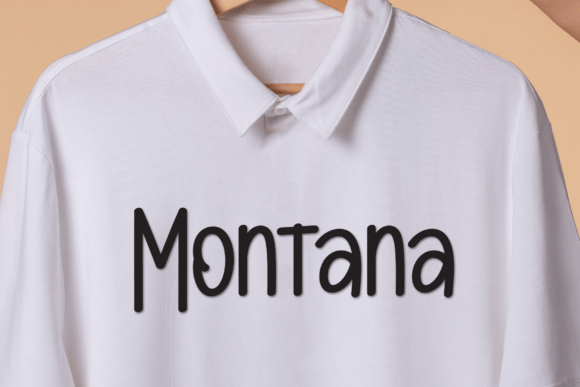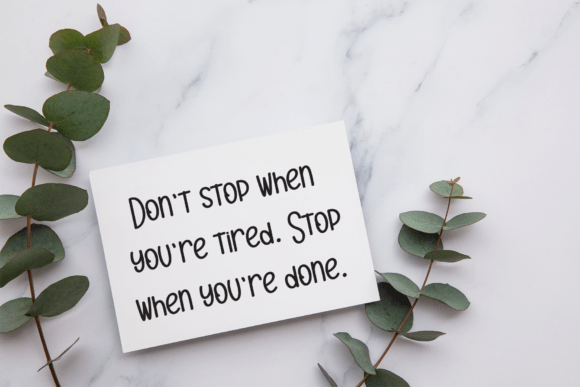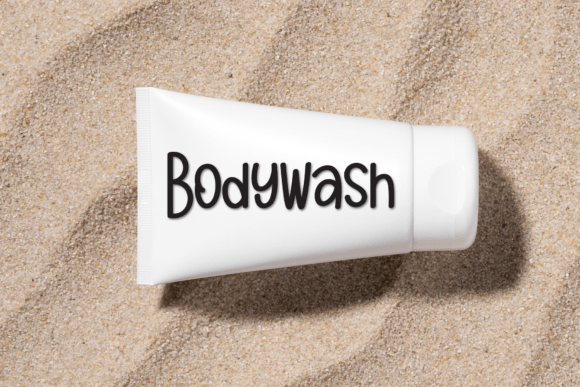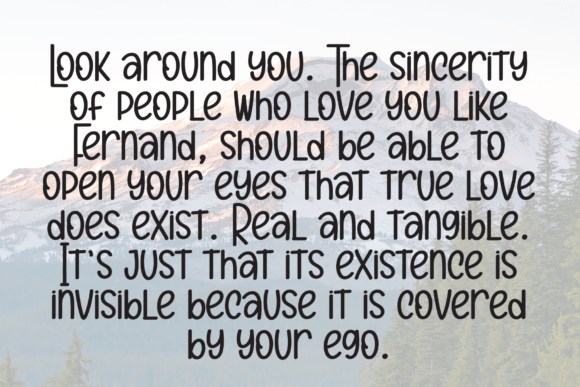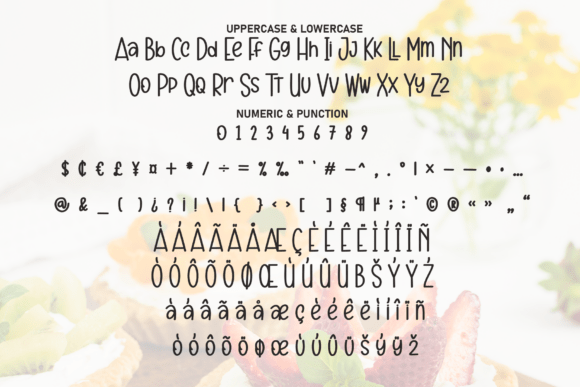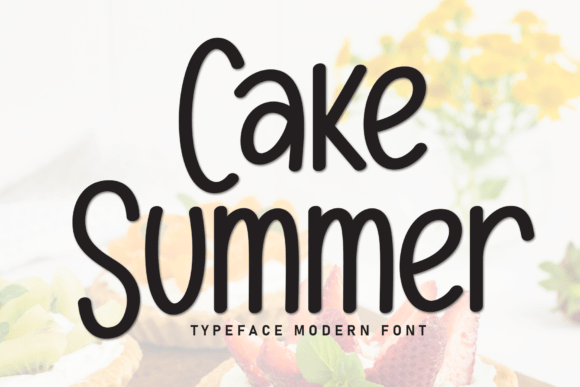
Cake Summer Font: The Perfect Addition to Your Design Projects
Are you looking for a font that exudes warmth, clarity, and a touch of casual elegance? Look no further than Cake Summer Font. This beautifully designed display font is perfect for adding a personal touch to your branding, headlines, and everyday designs. In this article, we’ll dive into the features and benefits of Cake Summer Font, and explore how it can elevate your design projects.
Clean Structure, Approachable Style
Cake Summer Font boasts a clean structure and approachable style, making it an excellent choice for designers and crafters who want to create a lasting impression. The font’s balanced letterforms offer exceptional readability, ensuring that your message is conveyed clearly and effectively. Whether you’re designing a logo, brochure, or social media post, Cake Summer Font is the perfect choice for adding a touch of sophistication and charm.
One of the standout features of Cake Summer Font is its versatility. This font is perfect for a wide range of design projects, from branding and advertising to packaging and digital media. The font’s casual and neat display style makes it an excellent choice for:
• Branding: Create a lasting impression with Cake Summer Font, perfect for logos, business cards, and letterheads.
• Headlines: Add a touch of elegance to your headlines with Cake Summer Font, ideal for posters, flyers, and social media posts.
• Everyday designs: Use Cake Summer Font to add a personal touch to your everyday designs, such as invitations, menus, and packaging.
Why Choose Cake Summer Font?
So, what sets Cake Summer Font apart from other fonts? Here are just a few reasons why designers and crafters love this font:
• Readability: Cake Summer Font offers exceptional readability, making it perfect for designs where clarity is key.
• Charm: The font’s balanced letterforms and clean structure give it a charming and inviting feel.
• Genuine feel: Cake Summer Font has a genuine and authentic feel, making every message feel personal and heartfelt.
Tips for Using Cake Summer Font
To get the most out of Cake Summer Font, here are a few tips to keep in mind:
• Pair with contrasting fonts: Pair Cake Summer Font with contrasting fonts to create visual interest and add depth to your designs.
• Experiment with colors: Try out different color combinations to find the perfect match for your design.
• Use for headlines and titles: Cake Summer Font is perfect for headlines and titles, but feel free to experiment with using it for body text too.
In conclusion, Cake Summer Font is a versatile and charming display font that’s perfect for adding a personal touch to your design projects. With its clean structure, approachable style, and exceptional readability, it’s an excellent choice for designers and crafters who want to create a lasting impression. Whether you’re designing a logo, brochure, or social media post, Cake Summer Font is sure to bring warmth and clarity to your projects.